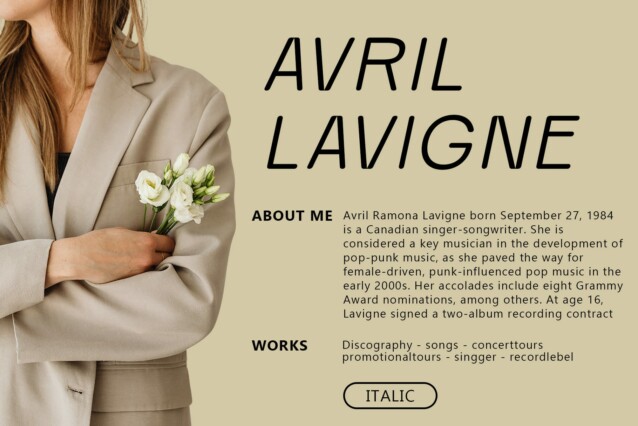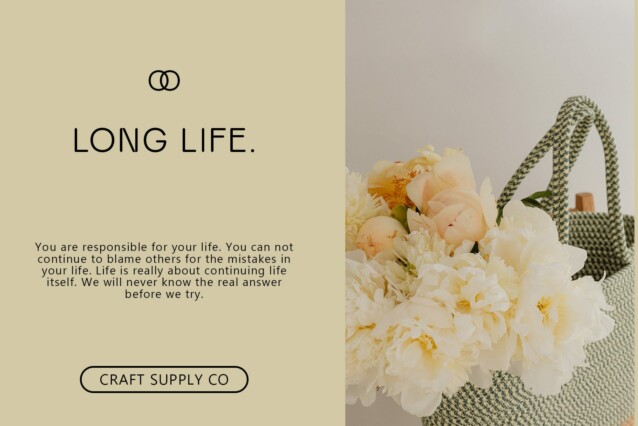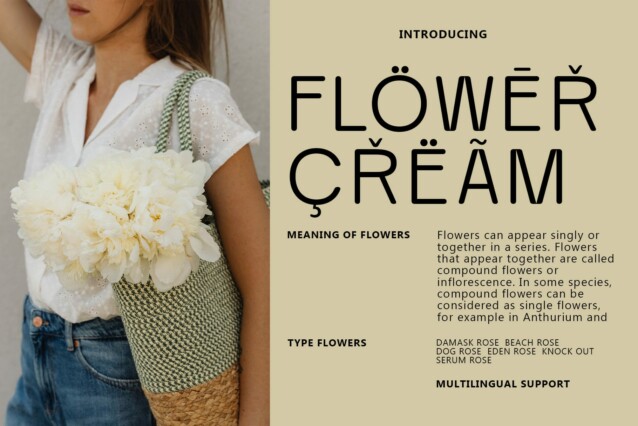
Ranberg Rounded Font
Ranberg Rounded Font: Embracing Minimalism and Modernity. Sleek Sans Serif Design Ranberg Rounded features a sleek sans serif design characterized by low contrast and rounded strokes. Its minimalist appearance exudes a contemporary vibe, perfect for various design applications.
Minimalist Aesthetics With its low-contrast letterforms and minimalist structure, This font embodies simplicity and sophistication. Each character is crafted with precision, offering a clean and modern aesthetic that appeals to a wide audience.